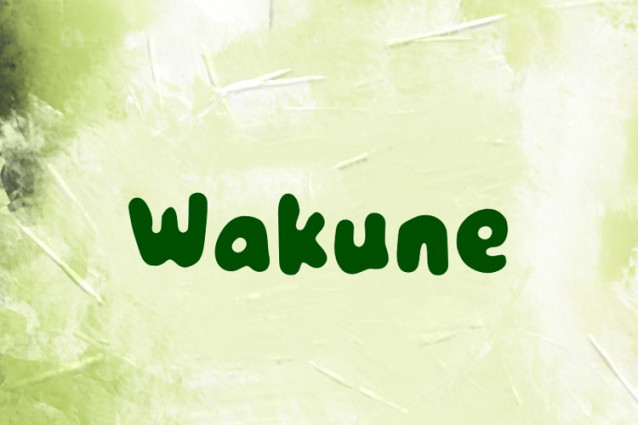
Wakune Font
Wakune Font is a chunky, comic, and cartoon display font. With its neat and joyful personality, this font will enhance any project you wish to create!